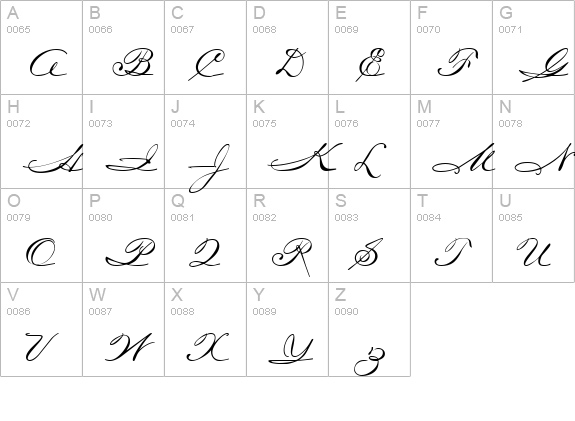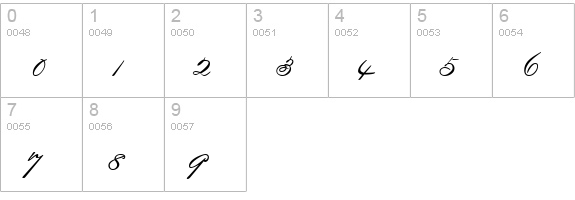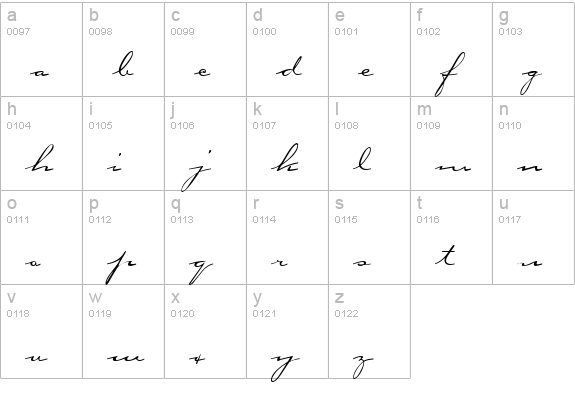
Carpenter Script Font Details
Carpenter Script font is a beautifully crafted typeface that exudes elegance and sophistication. Its intricate curves and flowing lines give off a sense of timeless charm, making it the perfect choice for projects that require a touch of class. This versatile script font is ideal for a wide range of design applications, from wedding invitations to branding materials. The best part is, Carpenter Script font is available for free download at FontsMarket.com. This means you can easily access this stunning font and incorporate it into your designs without breaking the bank. Don't miss out on the opportunity to elevate your projects with the exquisite Carpenter Script font - download it today and start creating stunning visuals that will leave a lasting impression.